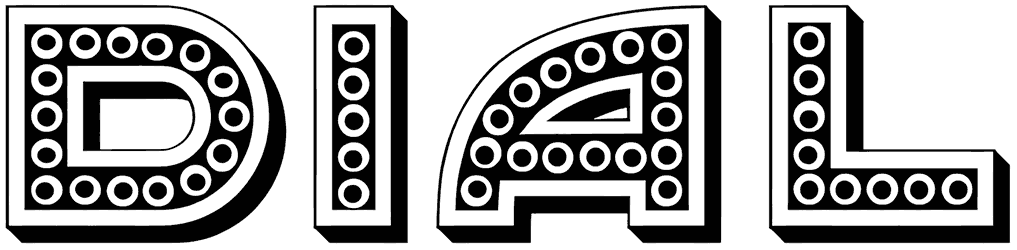
Dial Font
If you need to catch more attention for your design, this option can be an excellent suggestion. As a marquee font, Dial has a bold, retro, and memorable face that can give your words a unique style. Dial would be an interesting item for many projects like logos, headlines, or covers, even without lowercase, numbers, or punctuation.